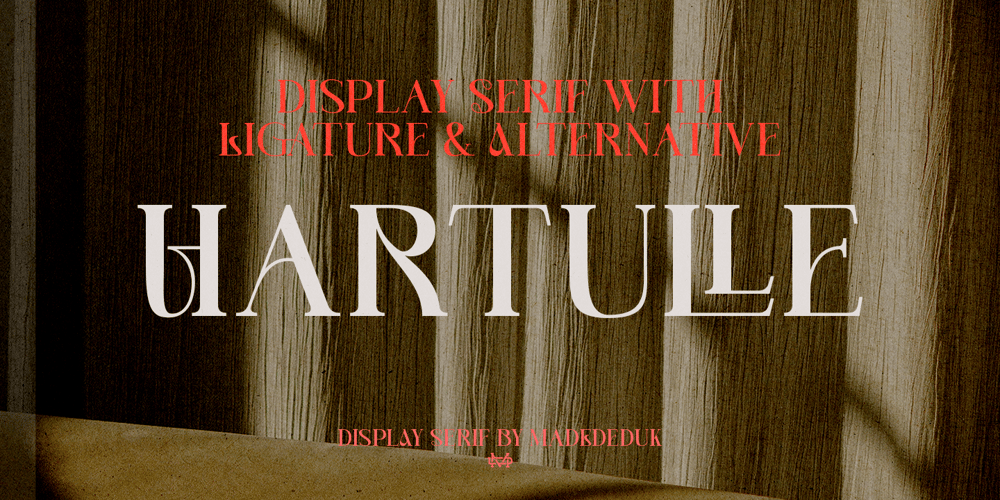
Hartulle Font Family was designed by madededuk and published by madeDeduk. Hartulle contains 1 styles and family package options. Hartulle is a display serif, simplistic, high-contrast sans that is at home in high-end fashion and cultural environments you can explore and combine. use this font for any branding, product packaging, invitation, quotes,t-shirt, label, poster, logo etc.–UppercaseHope you enjoy it.